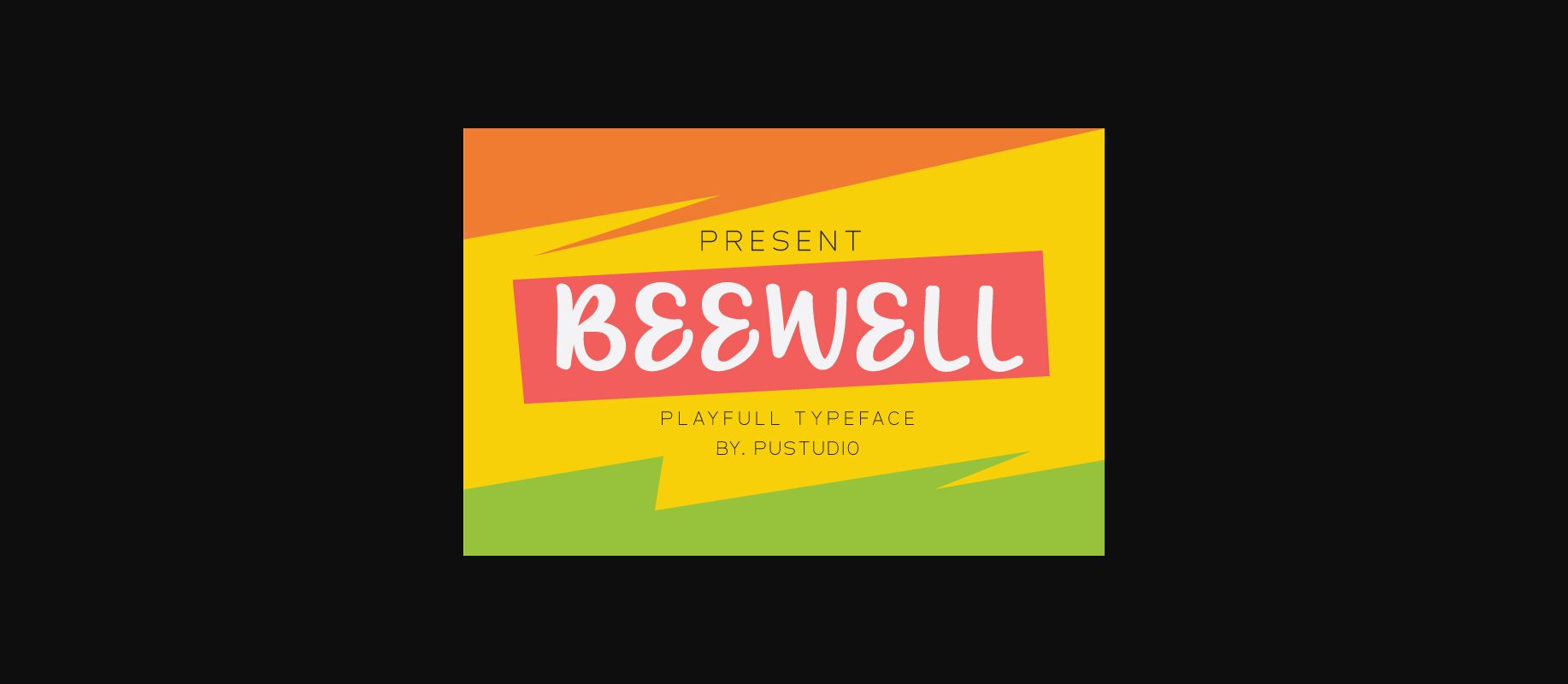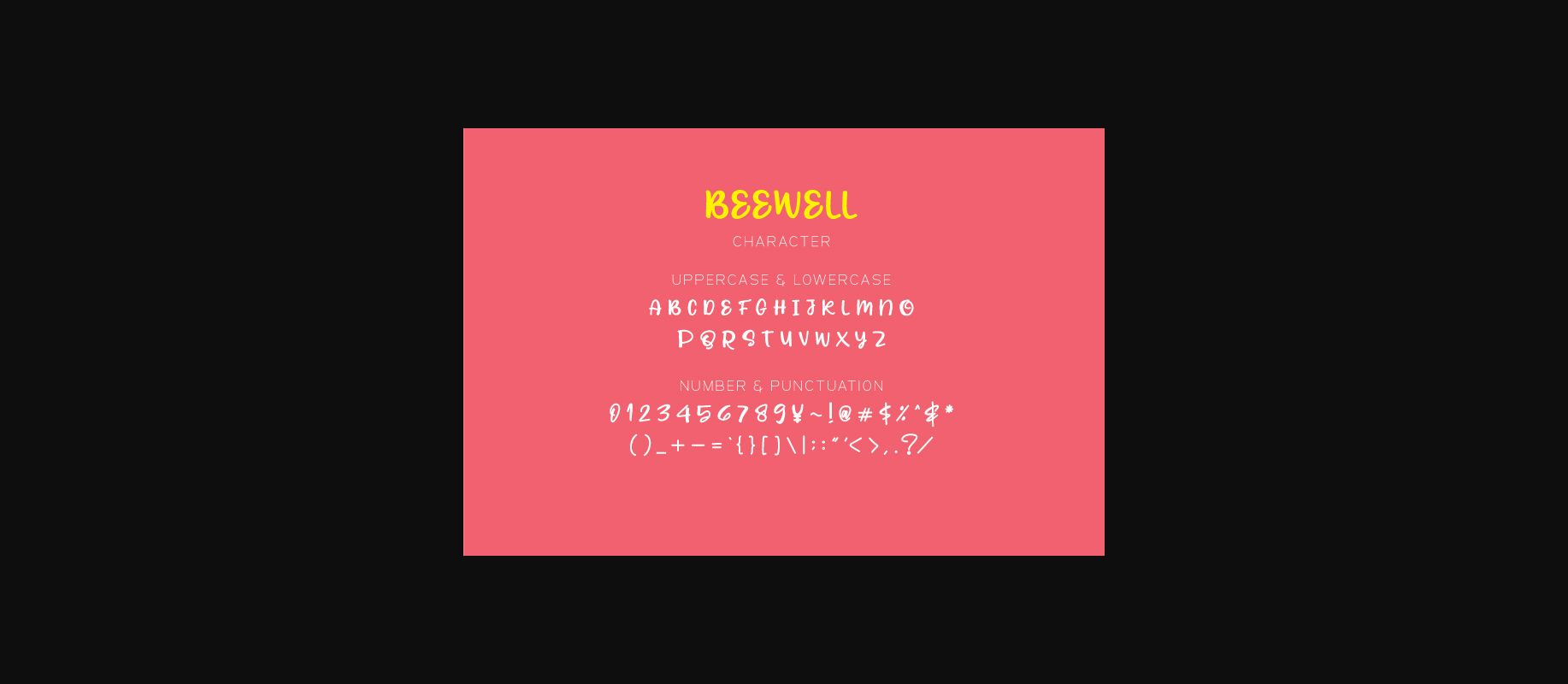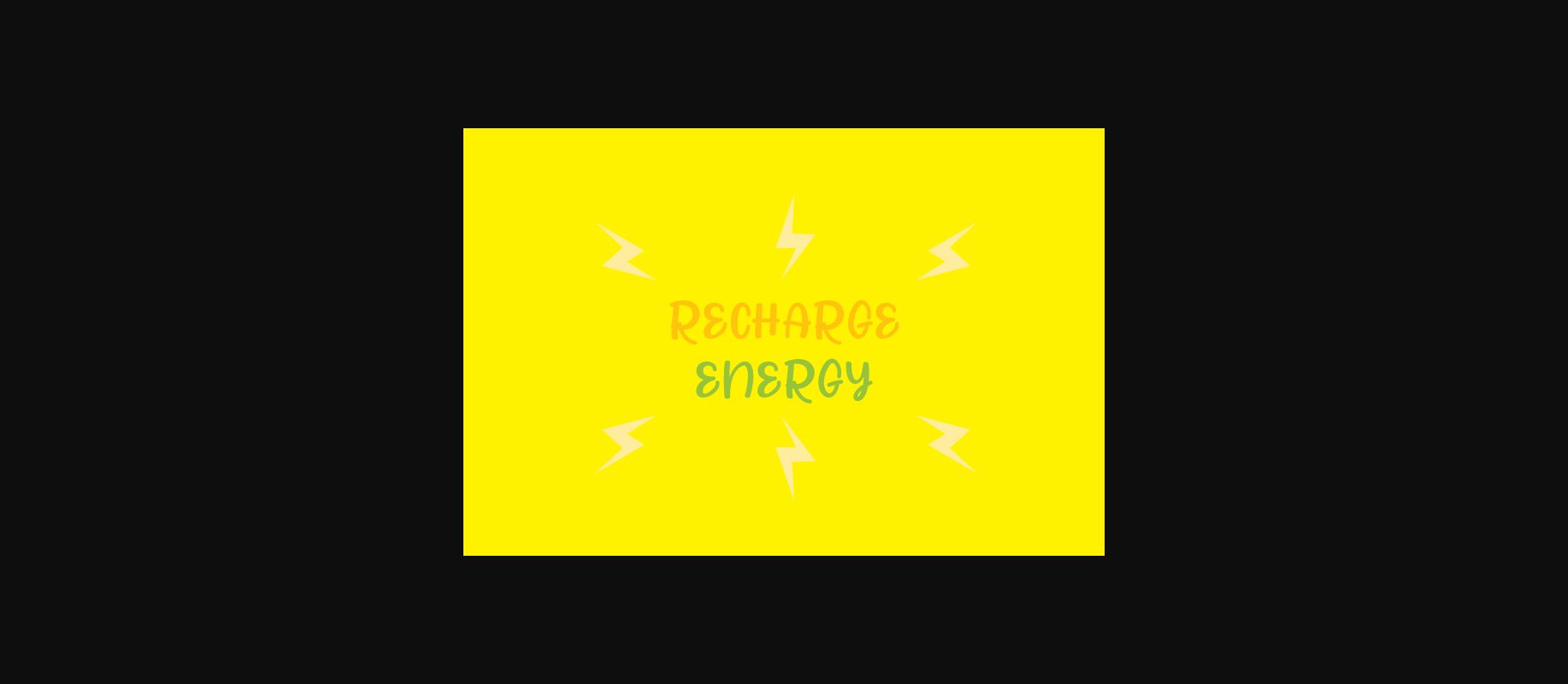
About Beewell Font
Beewell is a fresh and relaxed display font. It is perfect for poster designs, book covers, merchandise, fashion campaigns, newsletters, advertising, magazines, greeting cards, album covers and much more!